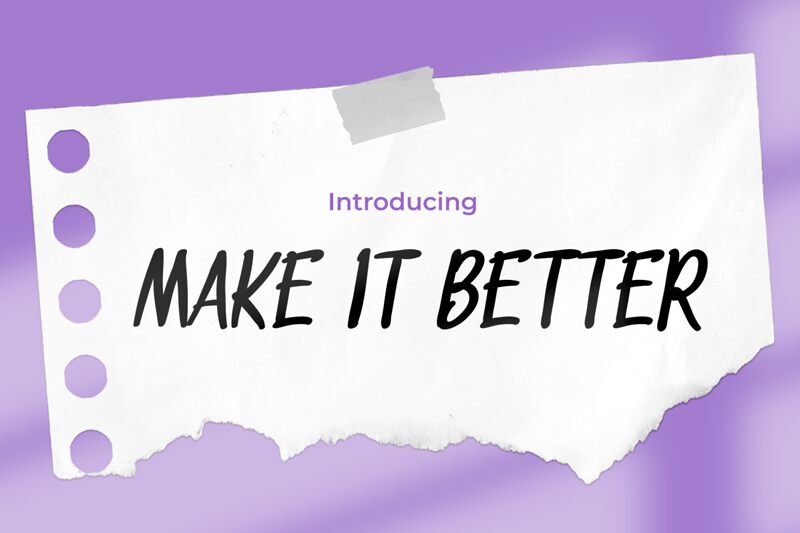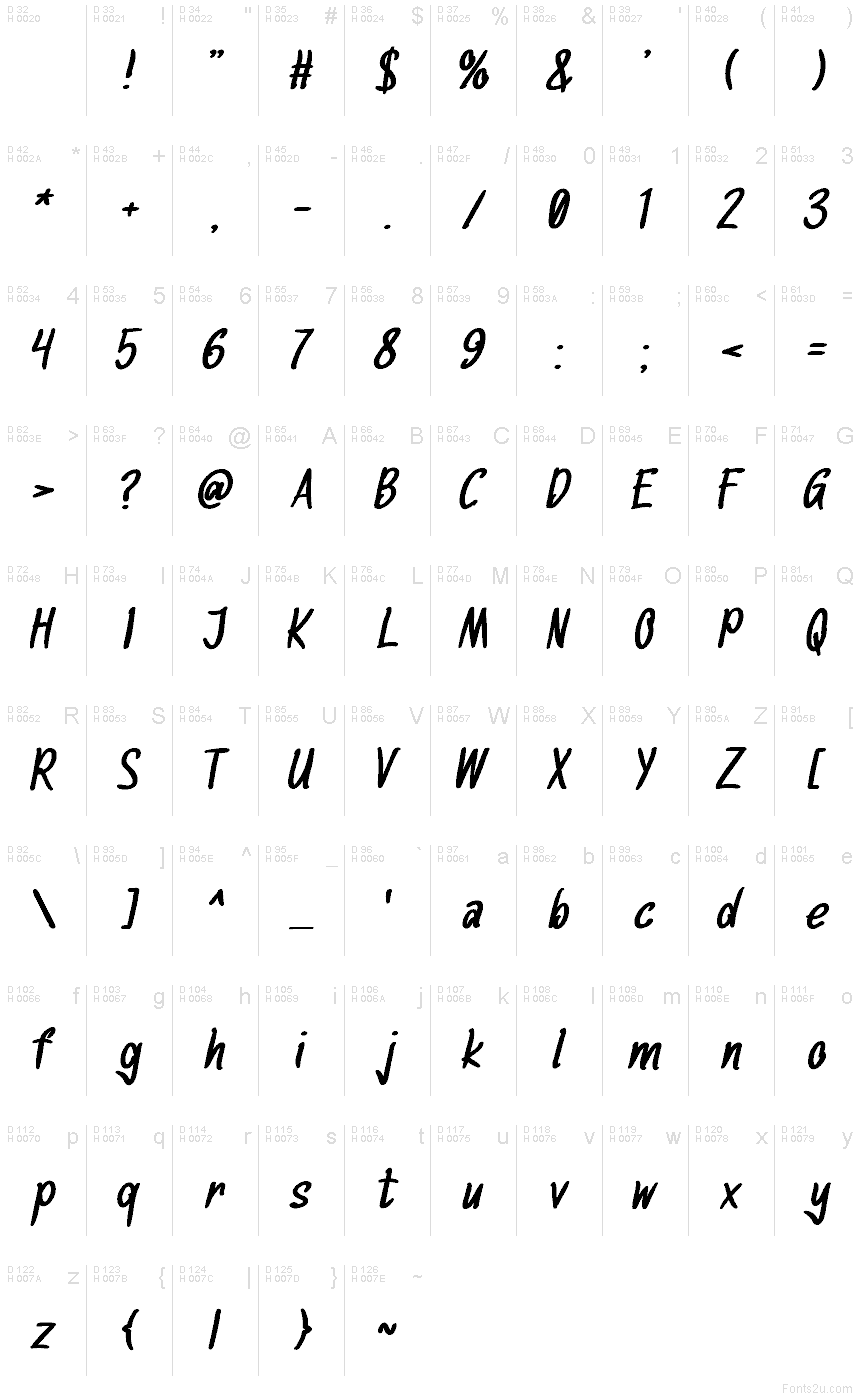
MAKE-IT-BETTER
Make-it-better font is a condensed handwritten font by Pinisiart with a smooth flow of expressive characters. Its cursive style hints at elegance through its casually detailed letter strokes and firm legible appearance. Enjoy its handwritten quality to customize and personalize your graphic design projects.